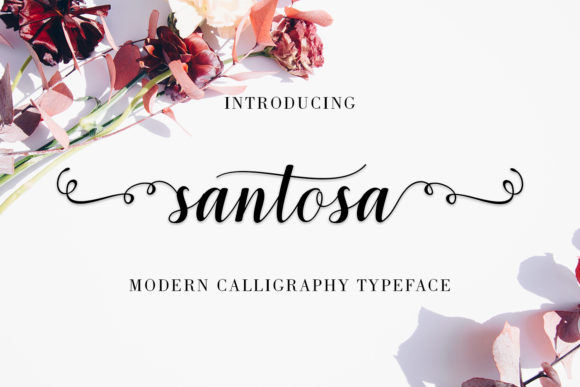
Meet Santosa, a script font that'll make your designs sing. With its graceful curves and captivating swashes, this font is perfect for adding a touch of elegance and flair to any project.
Whether you're designing invitations, social media posts, or website banners, Santosa will help you create visuals that stand out. Its versatility knows no bounds, from whimsical and playful to sophisticated and chic.
But what truly sets Santosa apart is the emotions it evokes. Its flowing lines and elegant curves inspire a sense of joy, creativity, and boundless possibilities. It's like a breath of fresh air for your designs, awakening them with a vibrant energy.
Imagine your designs adorned with the charm of Santosa – they'll become instant head-turners, capturing hearts and igniting imaginations. This font is not just a tool; it's a catalyst for creating designs that resonate deeply with your audience.
So, if you're looking to elevate your designs to new heights, look no further than Santosa. Its captivating beauty and emotional depth will transform your projects into works of art that captivate and inspire. Let Santosa be the secret ingredient that unlocks the extraordinary in your designs.